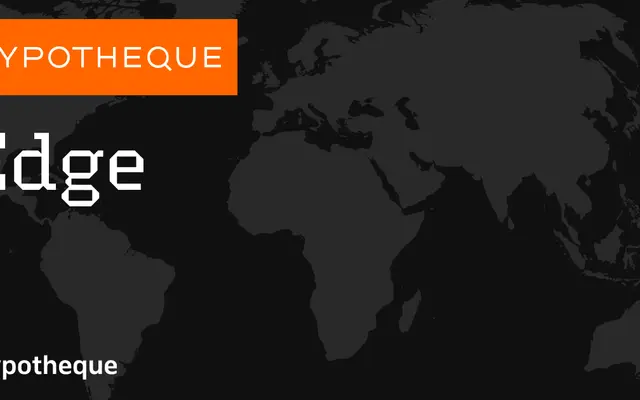
A two-subfamily type system from Typotheque pairing a serif and a sans variant across nine weights each with matching italics.
Edge is structured as a coordinated system comprising Edge and Edge Sans, each running from Thin to Black with corresponding italics — eighteen styles per subfamily, thirty-six in total. The shared proportions and construction between the serif and sans variants make the two subfamilies interchangeable within the same layout or publication. Individual styles are sold under city names ranging from Amsterdam to Reykjavík, suggesting a modular licensing approach typical of Typotheque's catalogue.
Edge is a sans-serif family with two subfamilies — a serifed variant simply called Edge and a sans variant called Edge Sans — suggesting a humanist construction shared between the two. The presence of both serif and sans versions under a unified system is consistent with humanist sans design logic.